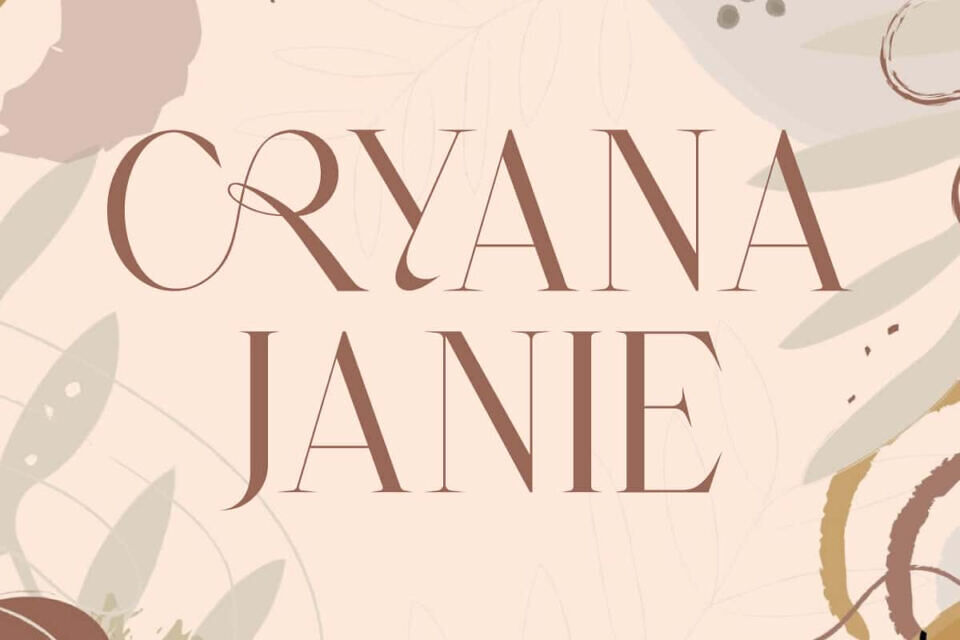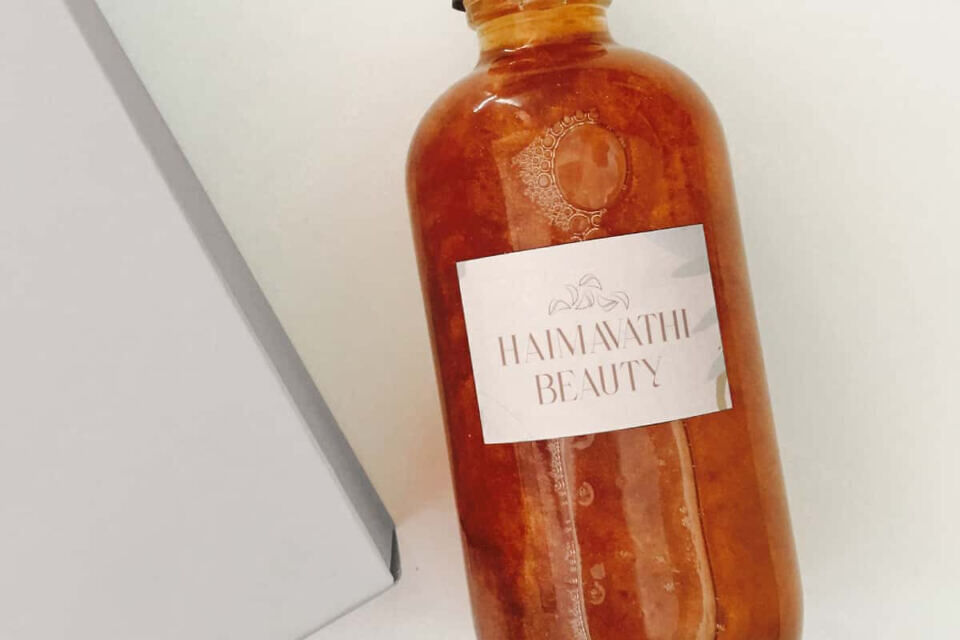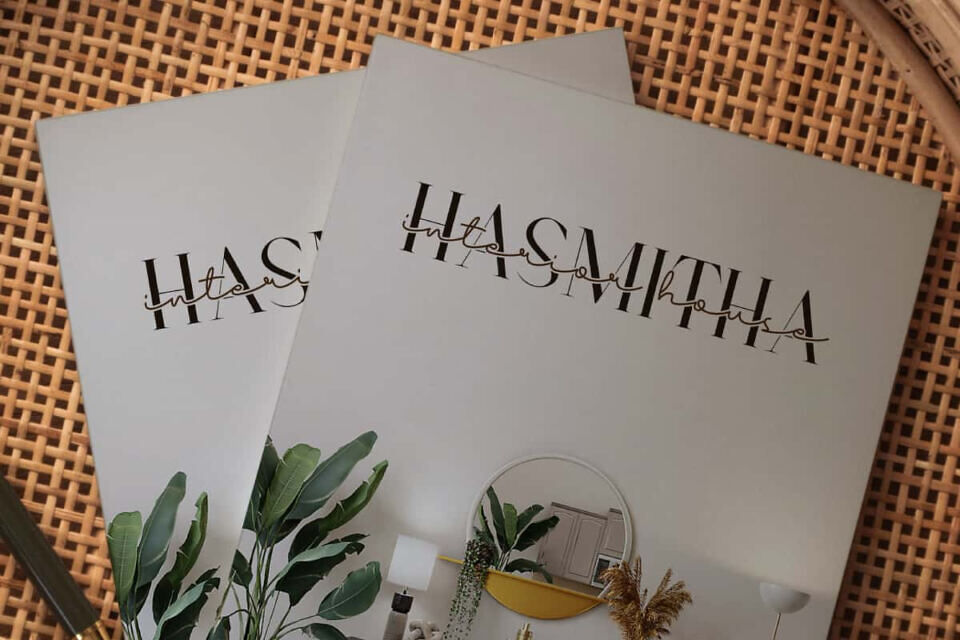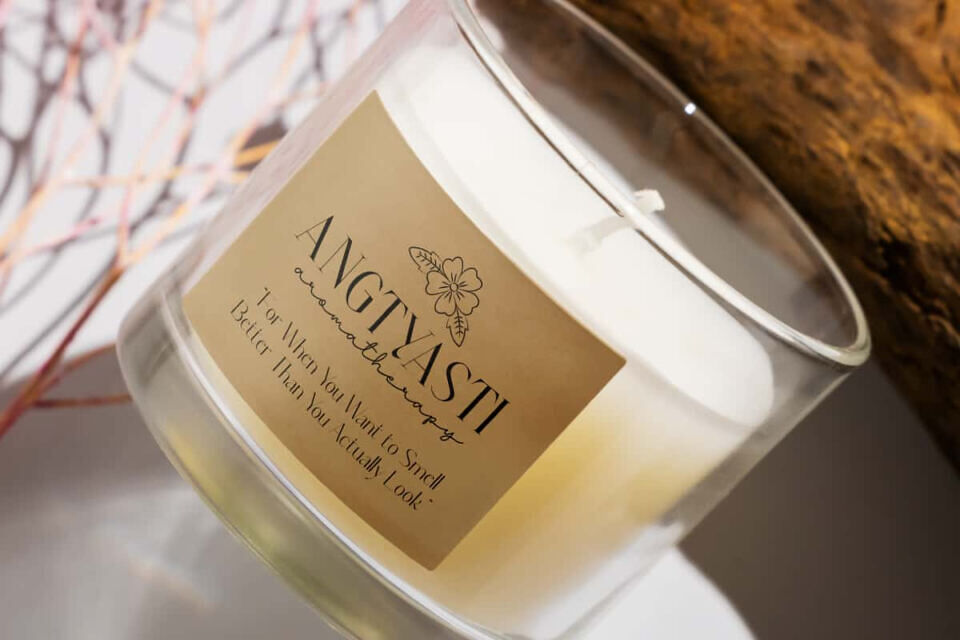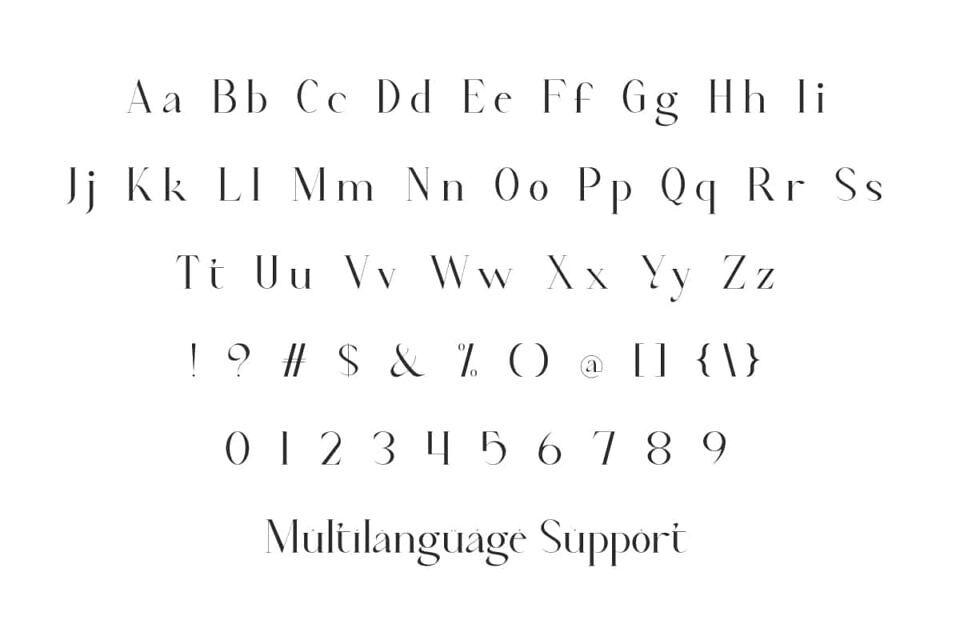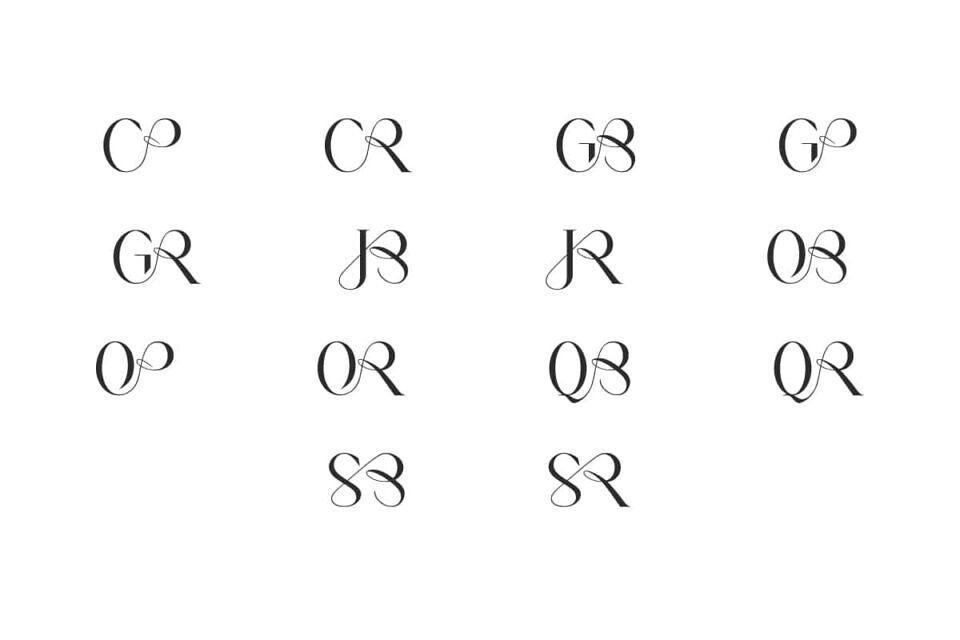
Cryana Janie Font
Cryana Janie Font is an elegant serif display font with a distinctive design that combines classic and modern aesthetic that has never seen before. This font will be perfect for any projects, can be used for advertisement, brand image, custom design, invitation, label, layout design, quotes, stationery, template design, website, and more!
Cryana Janie Font includes full set of Uppercase and Lowercase Basic Characters, Numerals, Punctuation, Symbol, and Ligature character. This font has fine details and unique curves that create an elegant impression. Making it a perfect choice for a variety of fields, such as event or wedding organizer, fashion, accessories and jewelry, beauty product, florist, furniture, real estate, spa salon, etc.